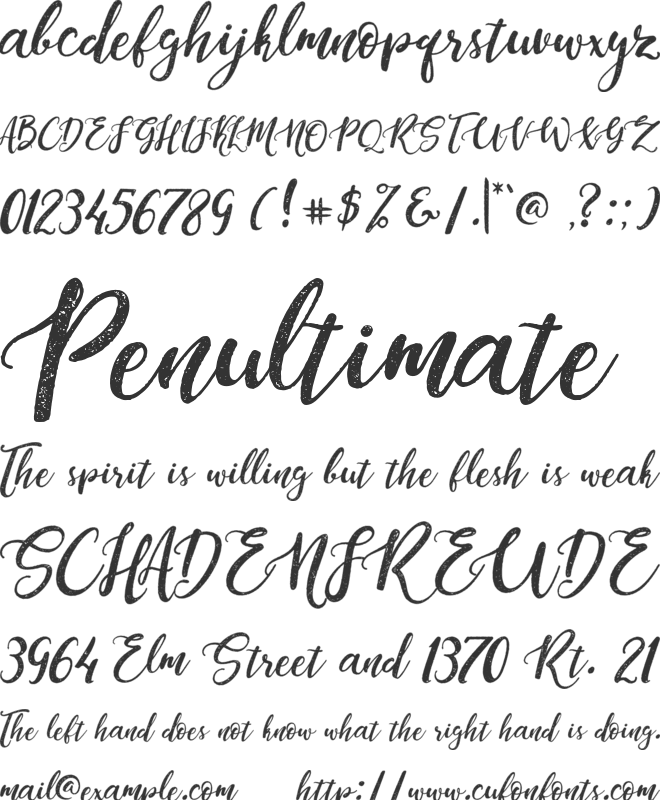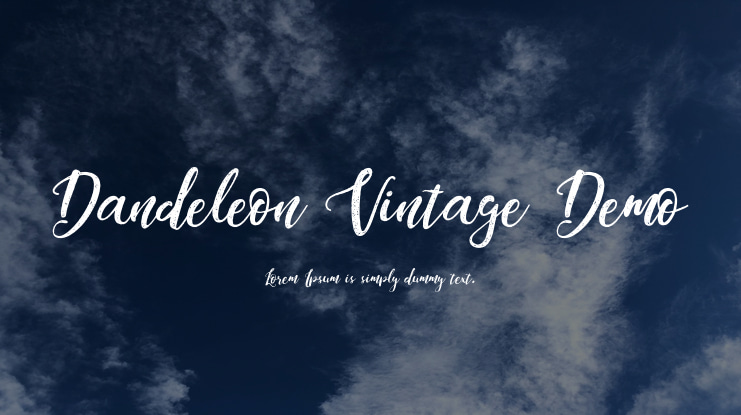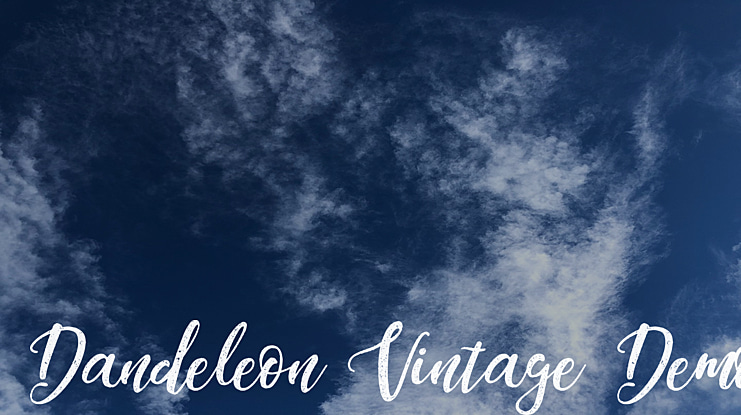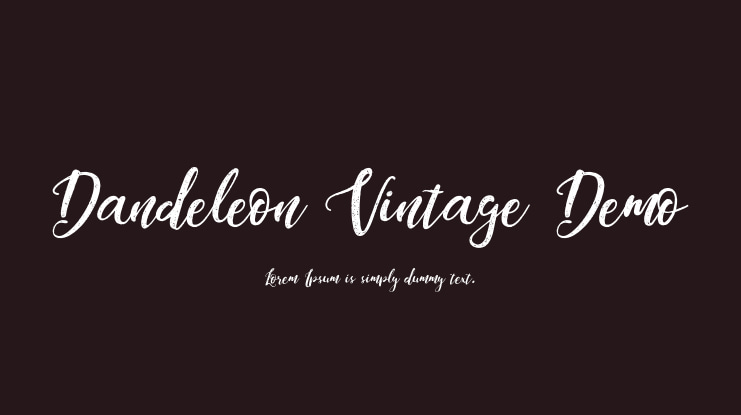
Dandeleon Vintage Demo Font
Dandeleón font+ SWASHES is a an original type to recognize. It comes in two versions; Vintage and Paint. The font contains contextual alternates supports multilingual languages, ligatures and PUA Encoded. Dandeleón font+ SWASHES Vintage created by Eric Kurniawan & I Made Miada, Dandeleón font+ SWASHES works great in logotypes and slogans. Use it as the go-to font for your business' titles.